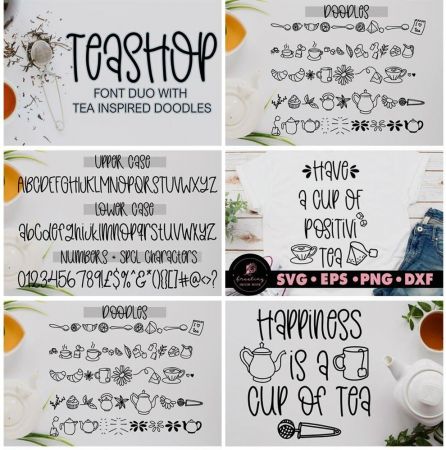
Teashop is a joyful and quirky display font. With its right balance of smooth and sharp, this font is incredibly versatile, fitting a wide pool of contexts.